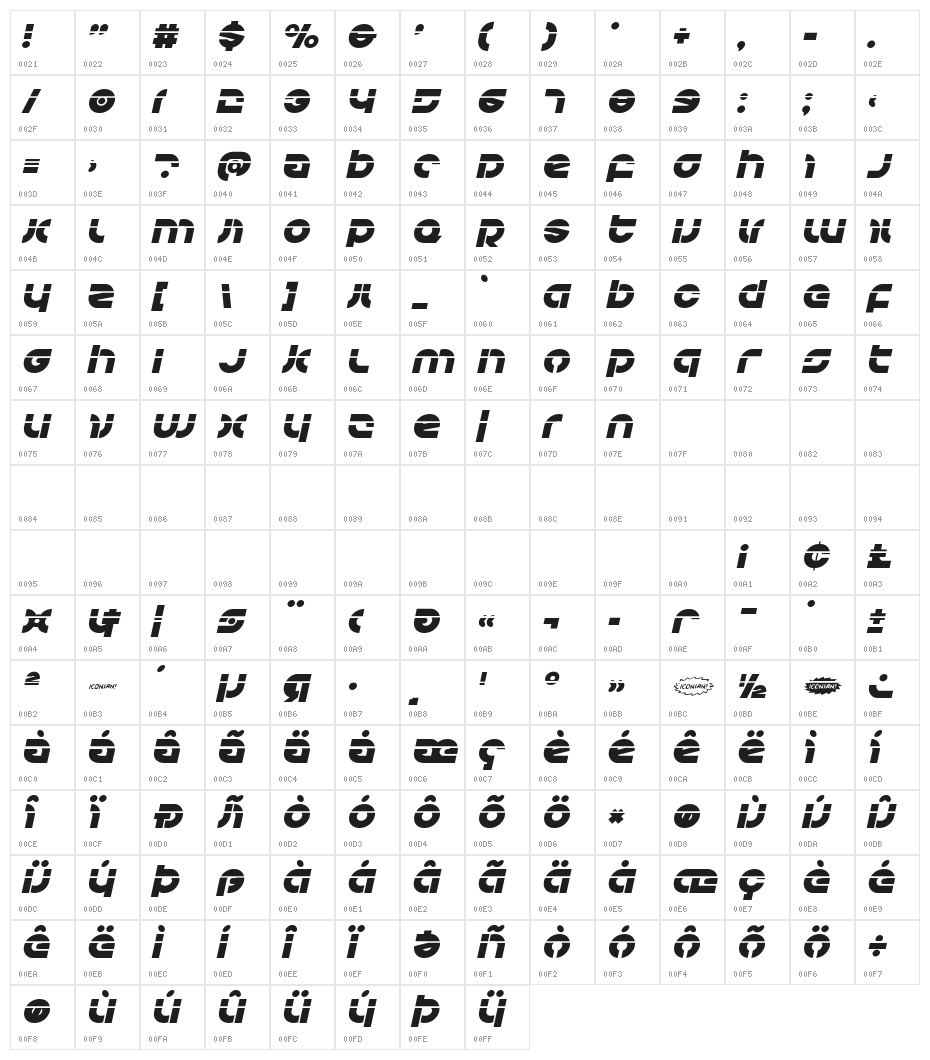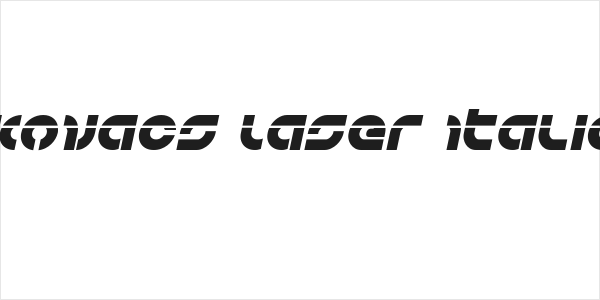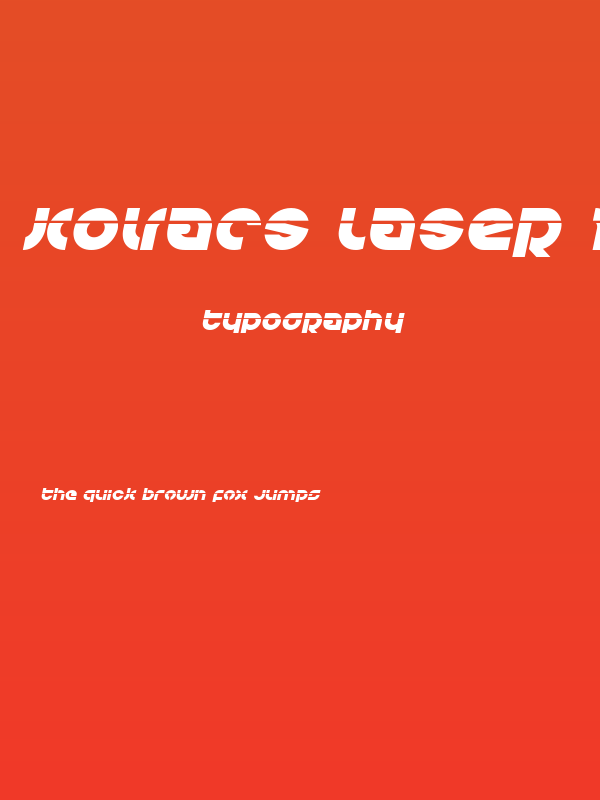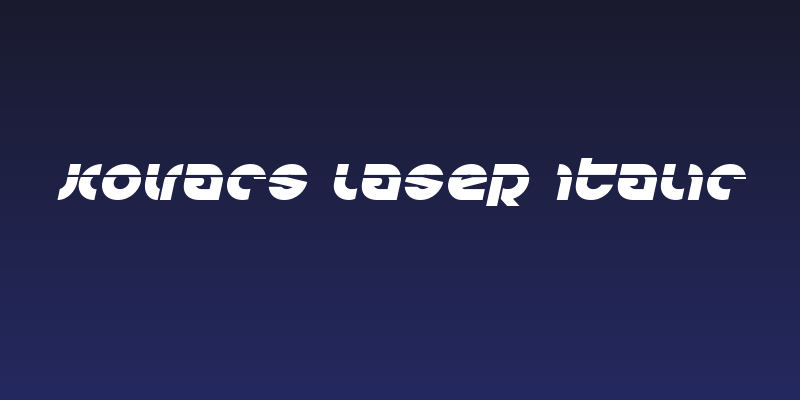
Kovacs Laser Italic Font
Kovacs Laser Italic Description
This font features a futuristic and geometric design with a distinct italic slant. The characters are bold and have a unique cut-out style, creating a dynamic and modern appearance. The uppercase and lowercase letters maintain a consistent style, with sharp angles and clean lines. The numbers and special characters follow the same design principles, ensuring uniformity across all glyphs. This font is ideal for projects that require a bold and eye-catching look, such as technology-themed designs or modern branding.
| Proposed Projects | Ideal for technology branding, sci-fi posters, and modern advertising. |